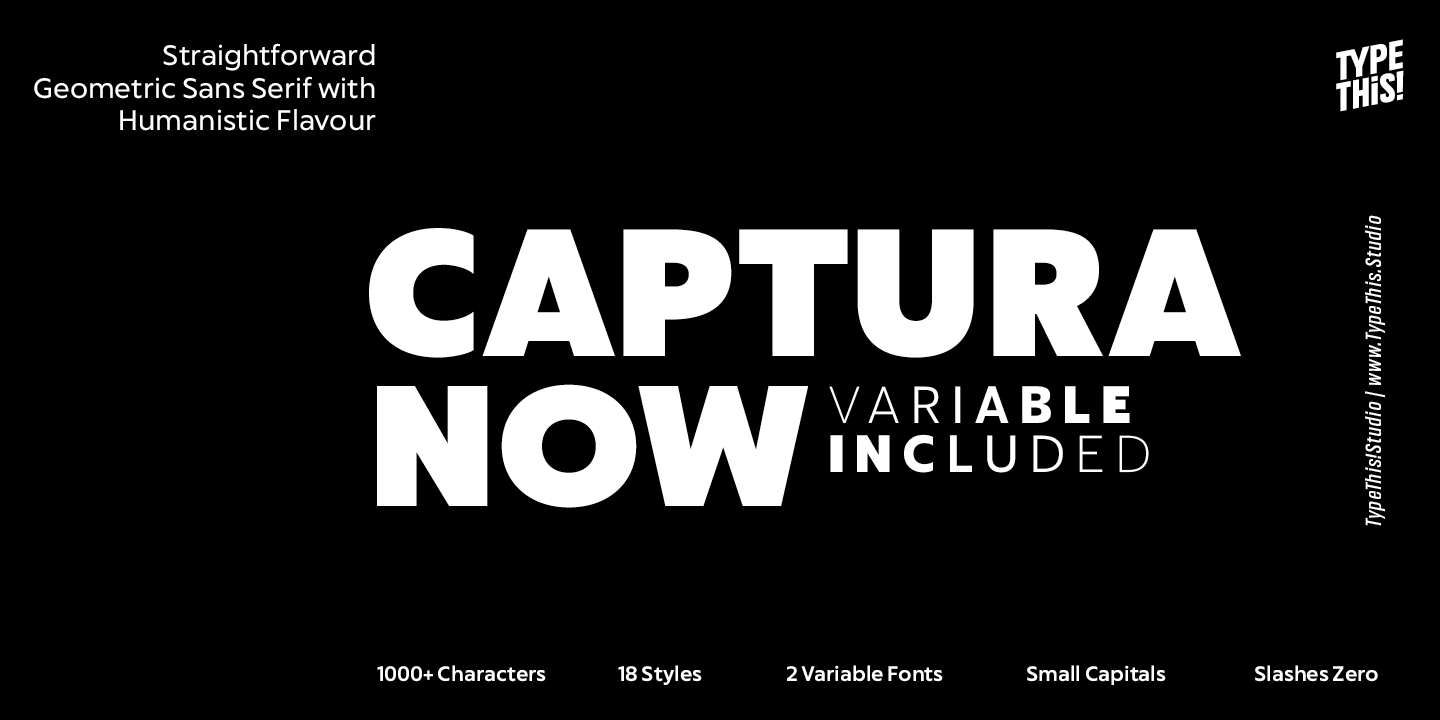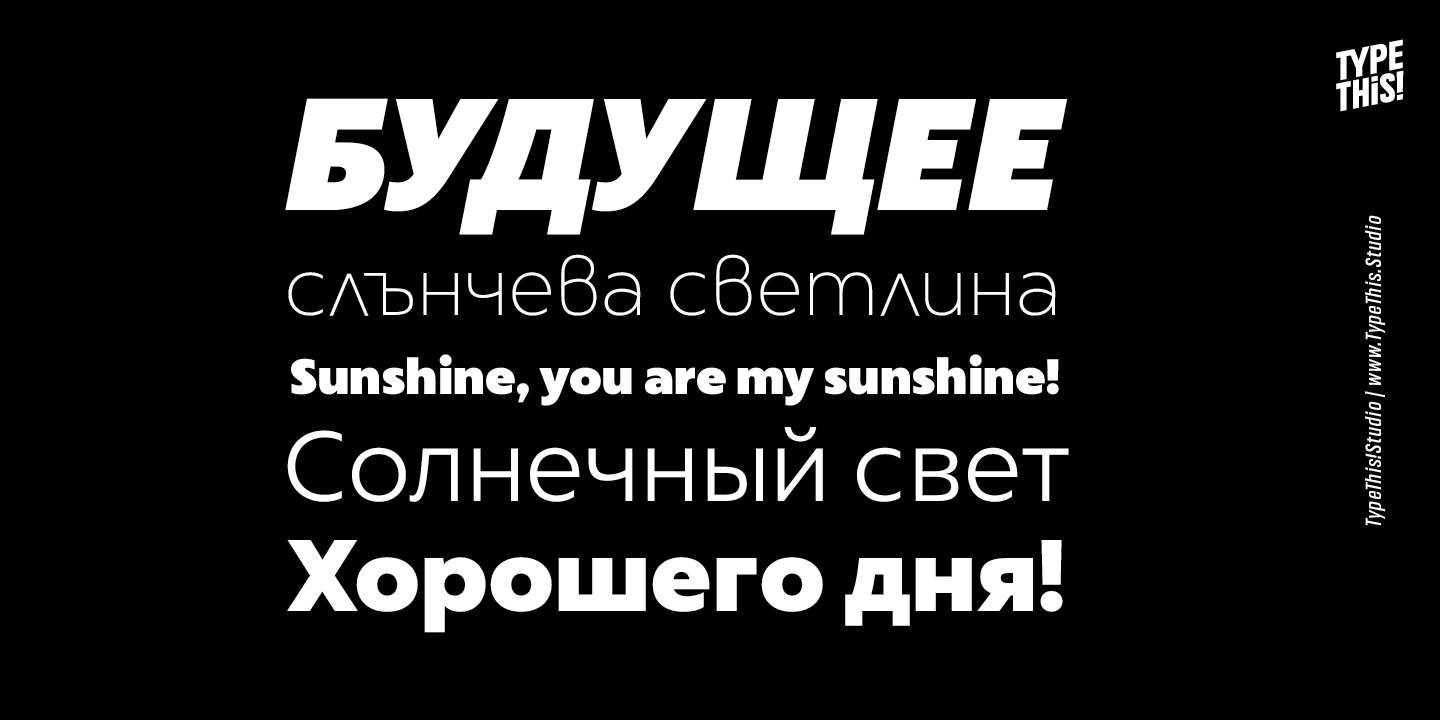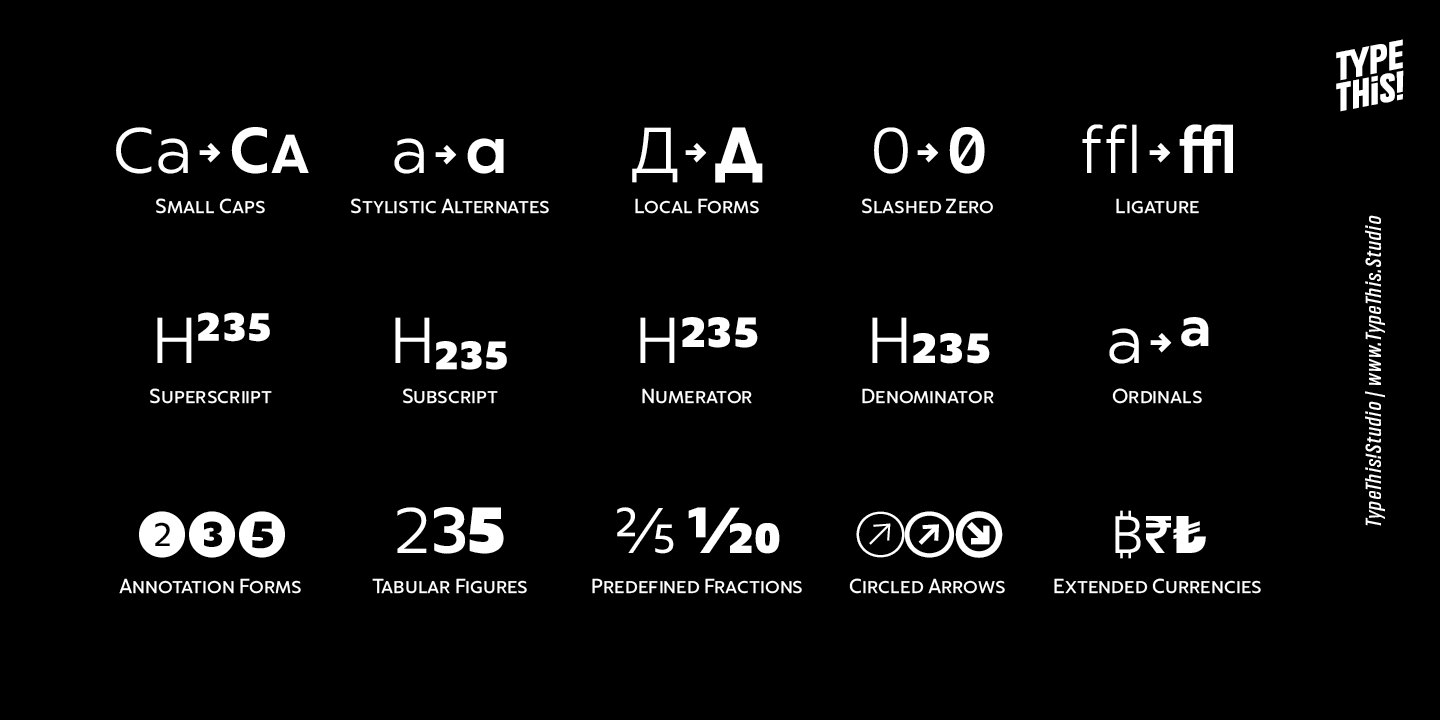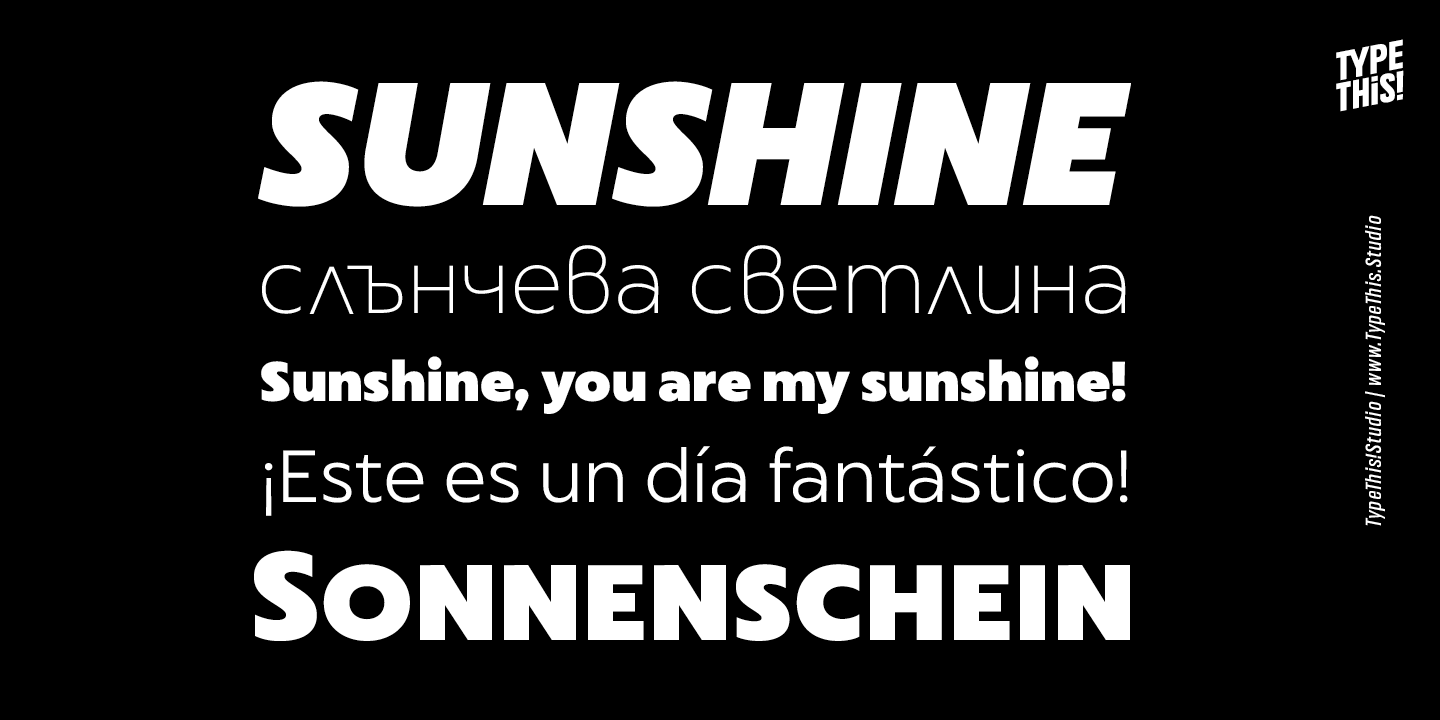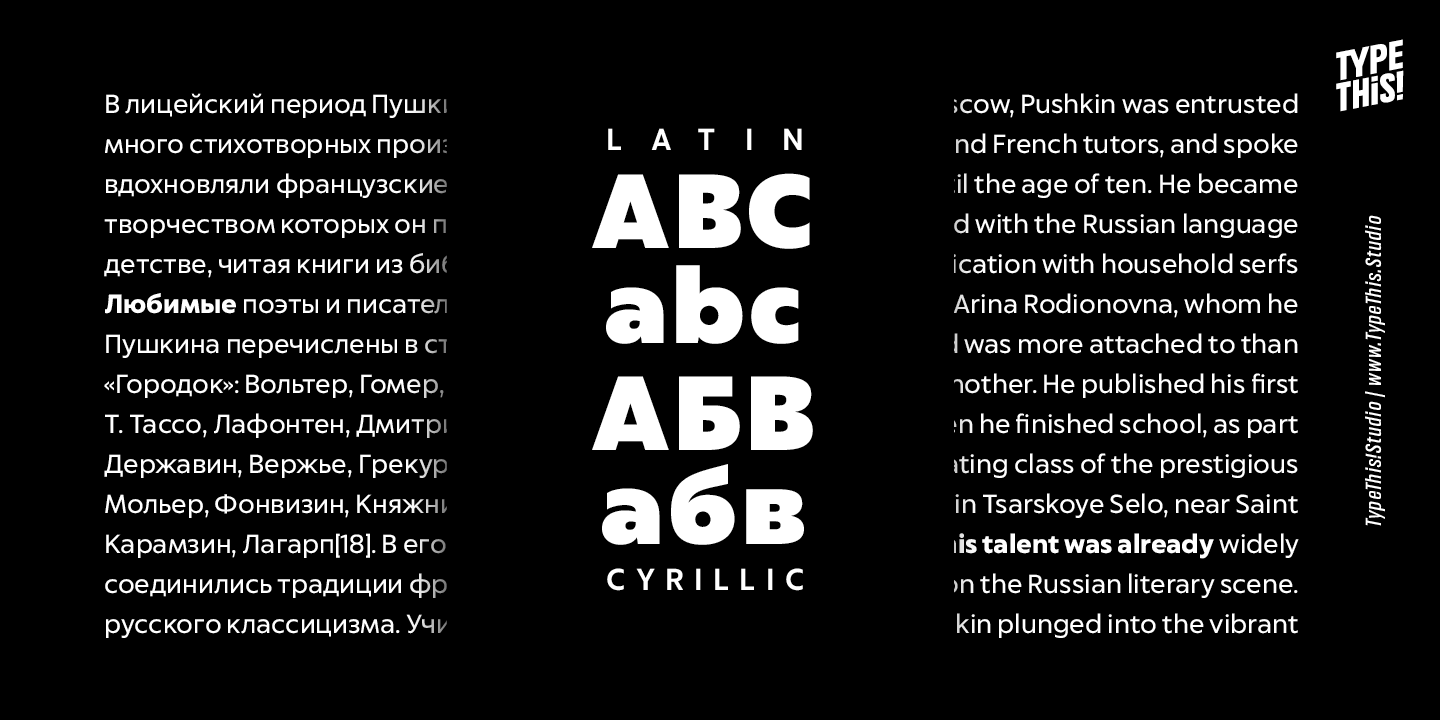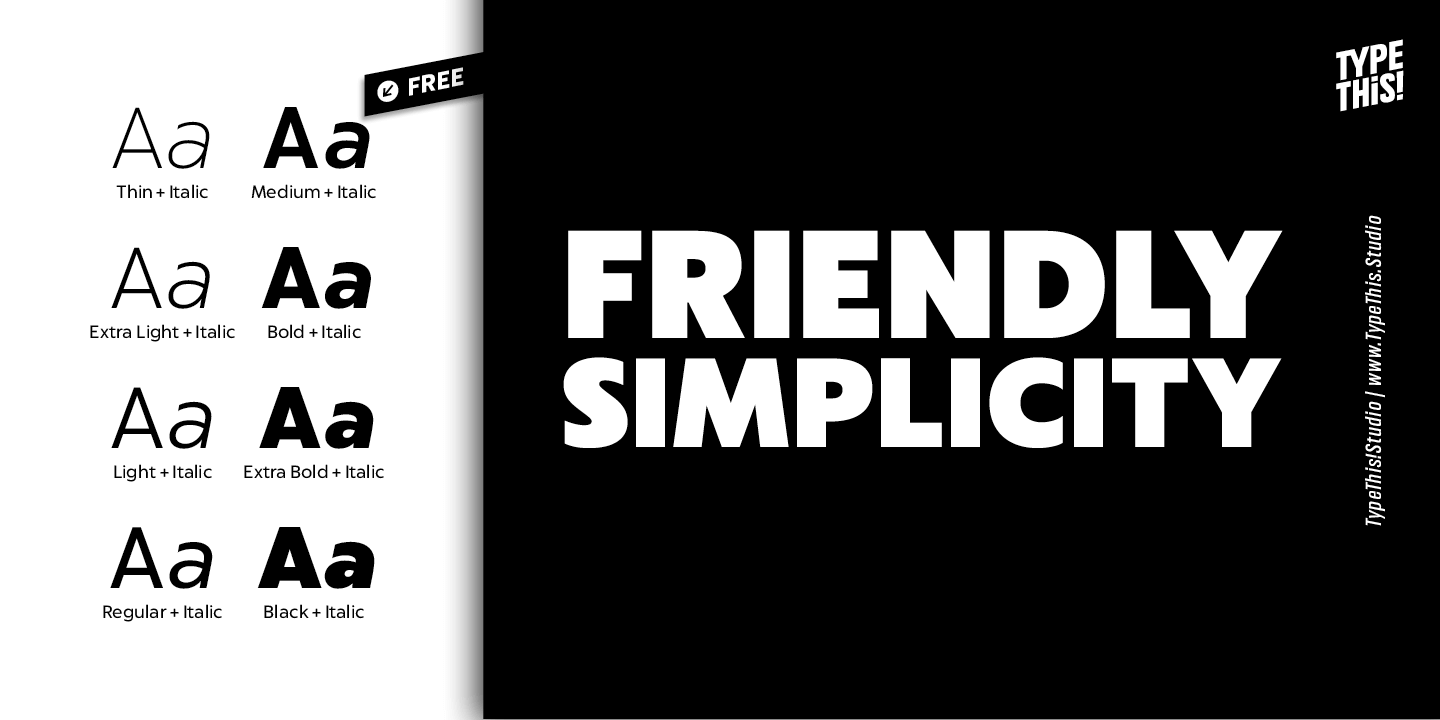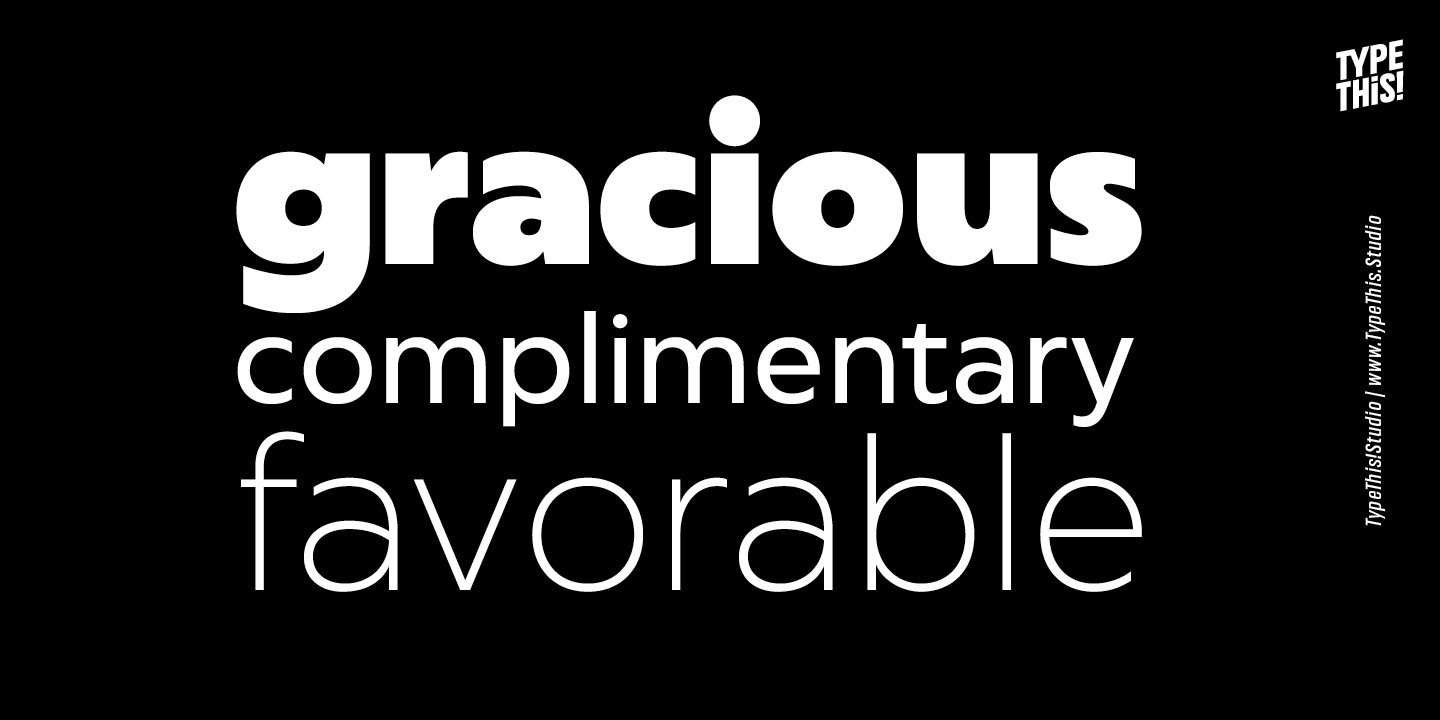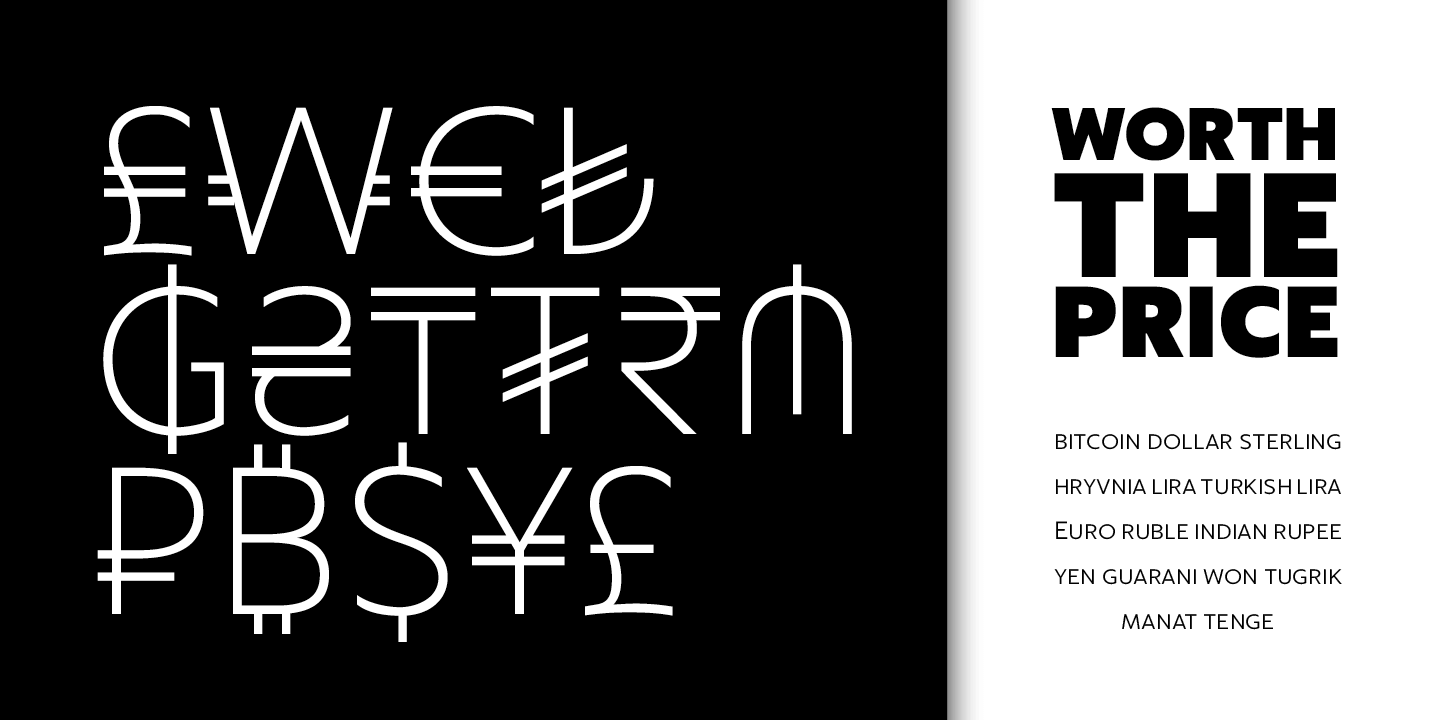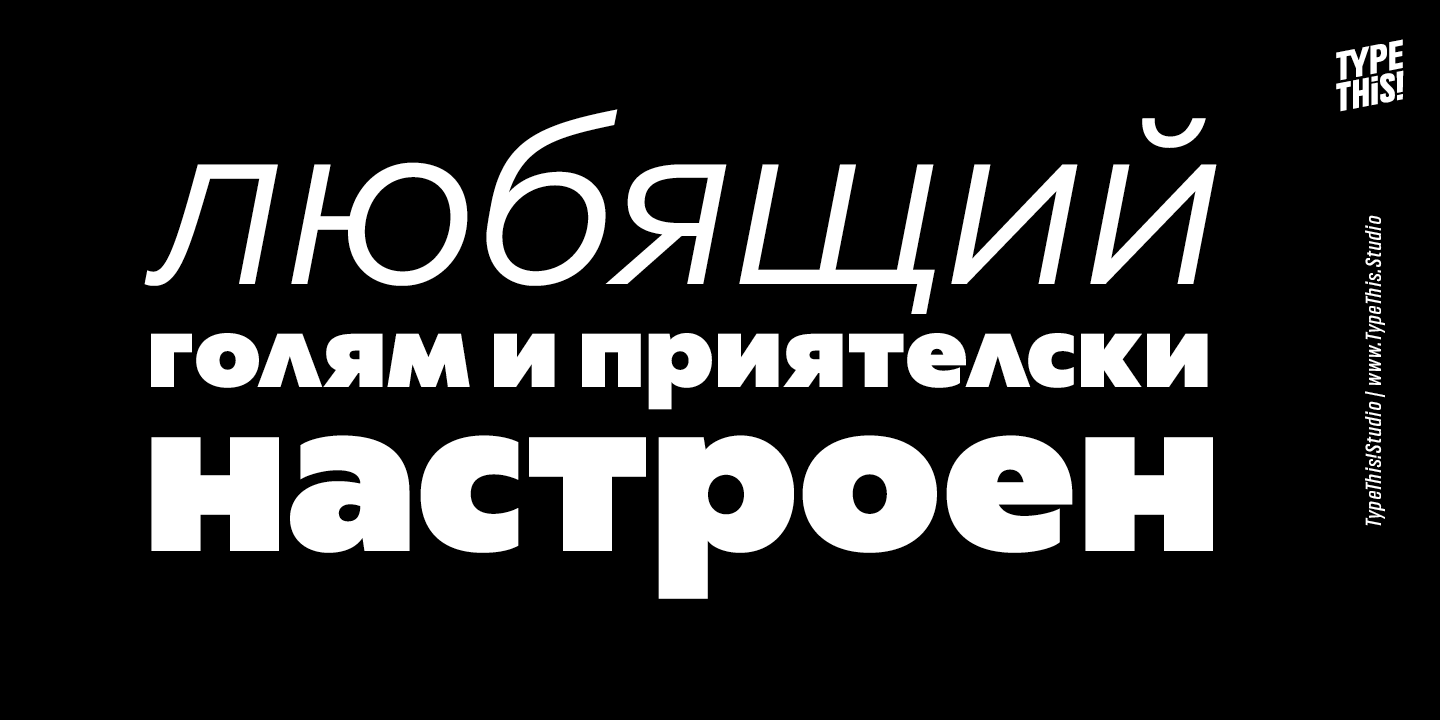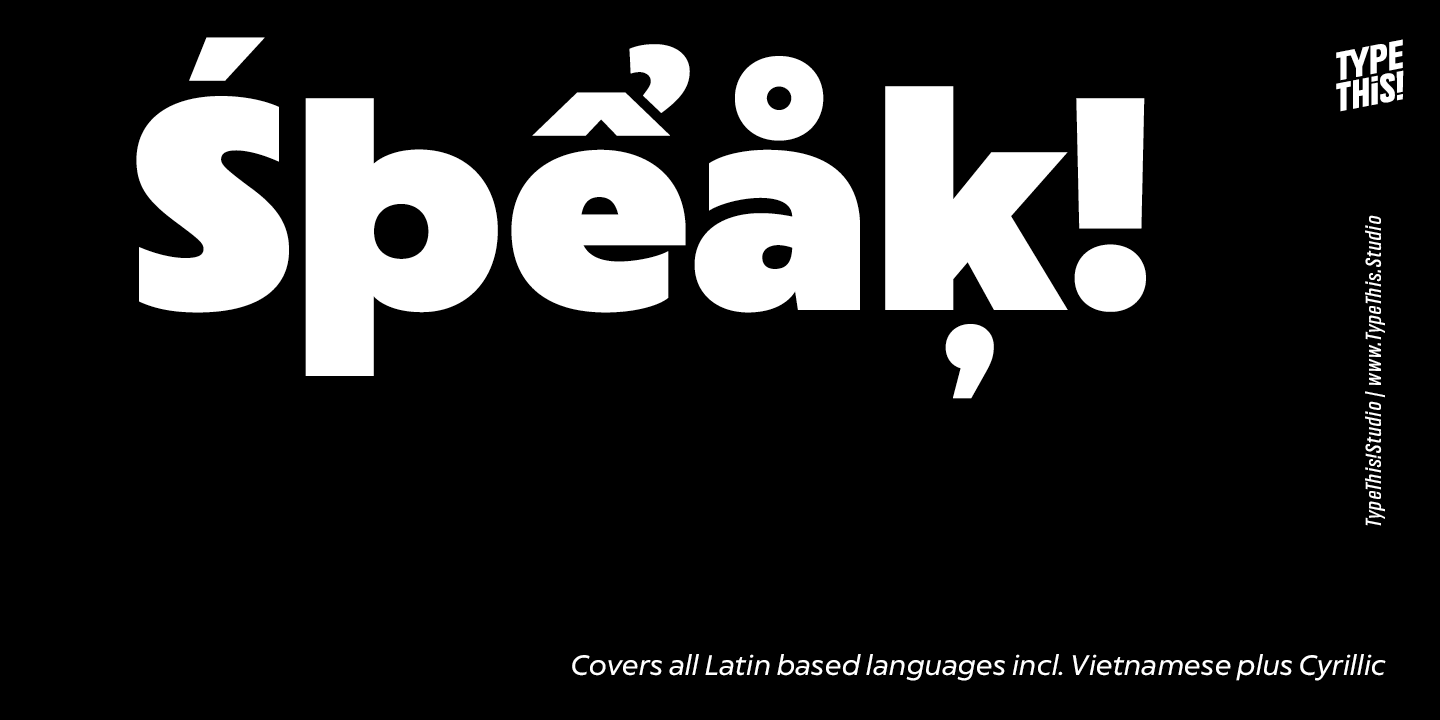
CapturaNow
create the gentle rhythm that grants Captura Now its warm-hearted face,
perfect in form and shape. Expanded with an enormous character set,
Captura Now offers the freedom to transform your design into
the Cyrillic-language world, as well as into any Latin based language
- including Vietnamese.
Select one of the predefined styles or choose to continuously adjust the
weights using the brand new variable font technology*. Numerous
OpenType-features such as stylistic alternates, small caps, circled
arrows, slashed zero and many more, have been implemented to
simplify your work process.